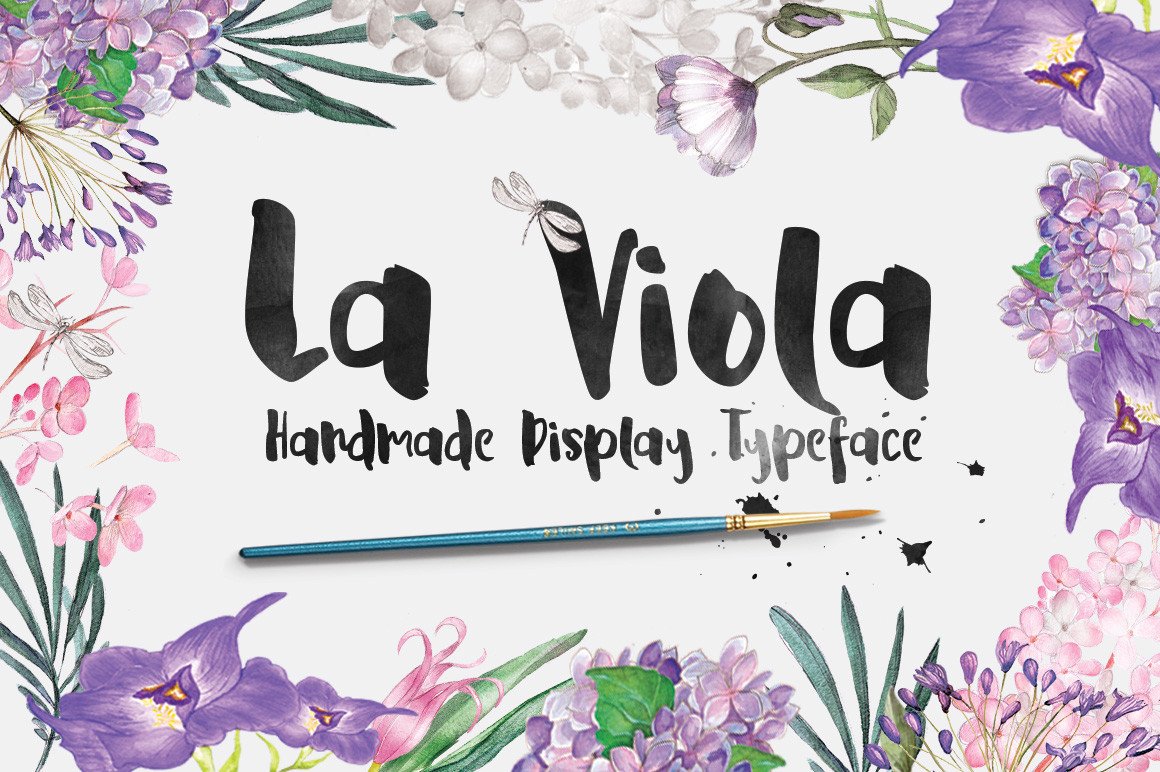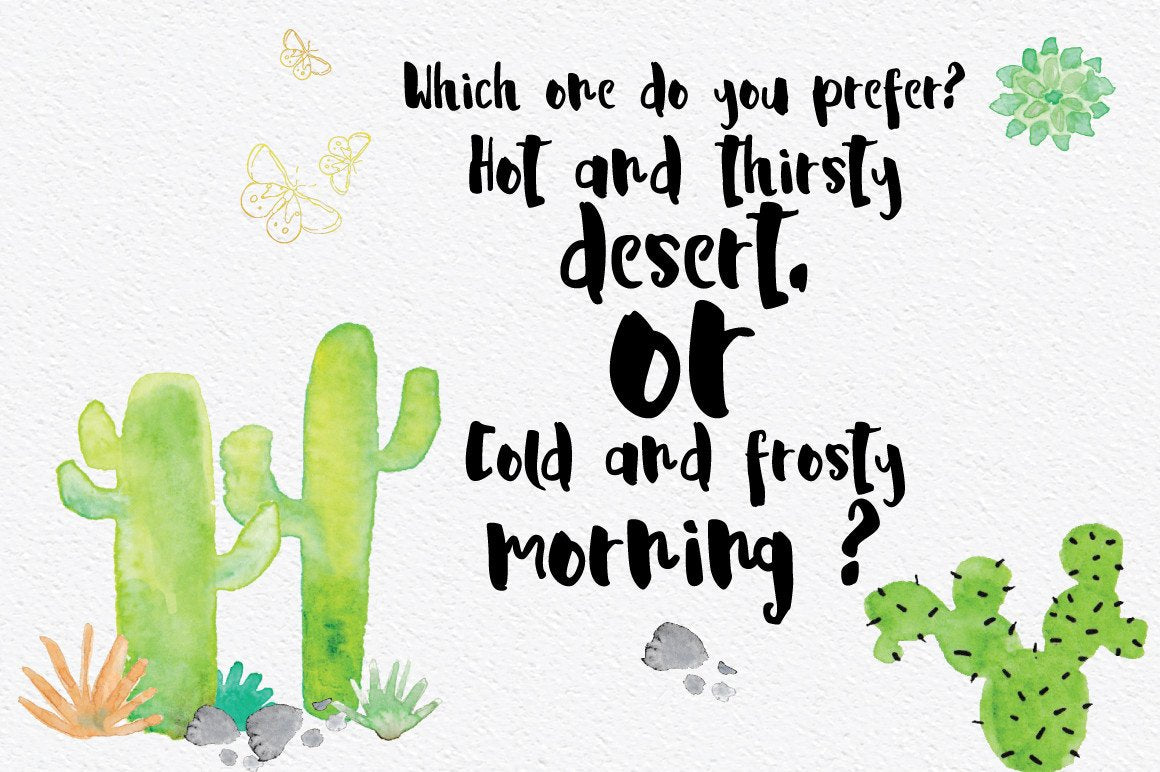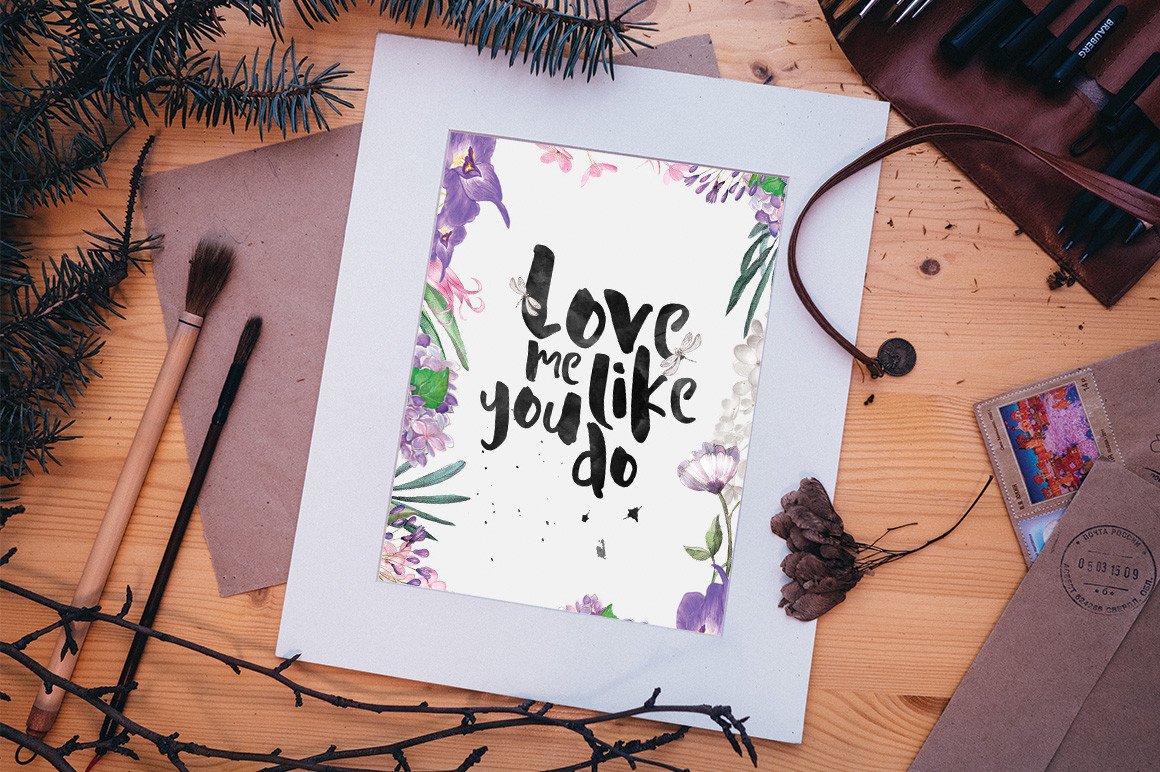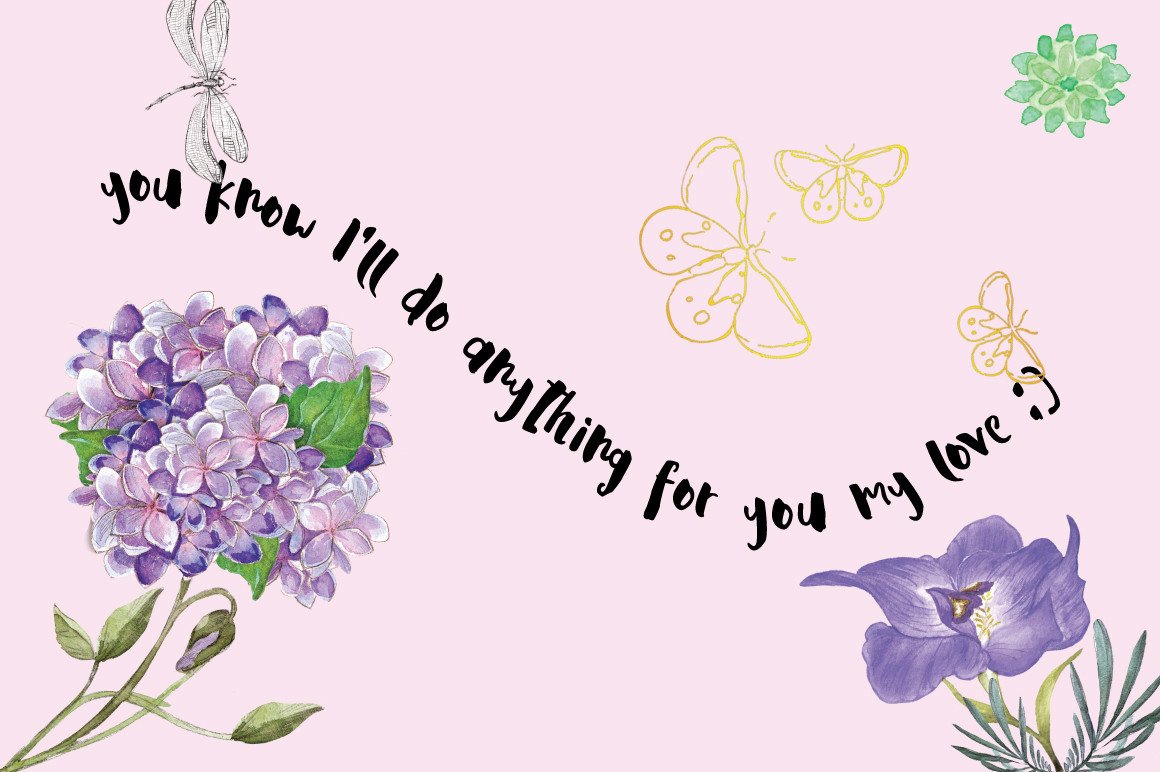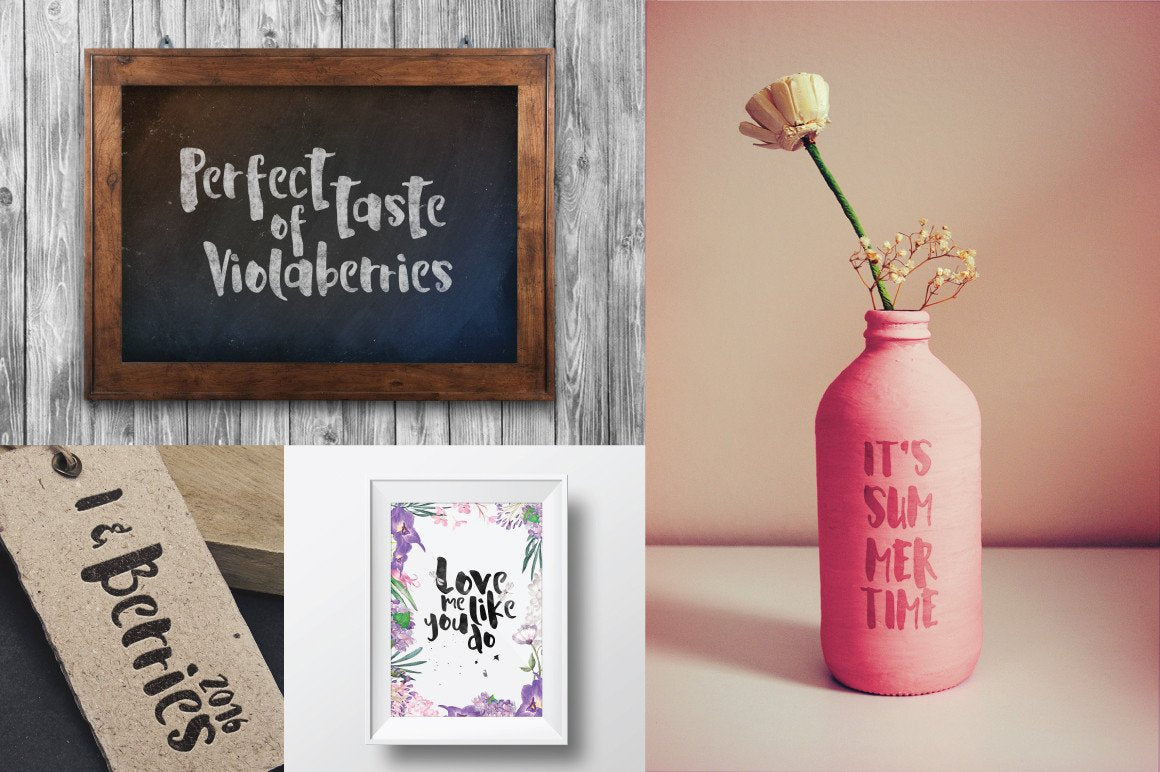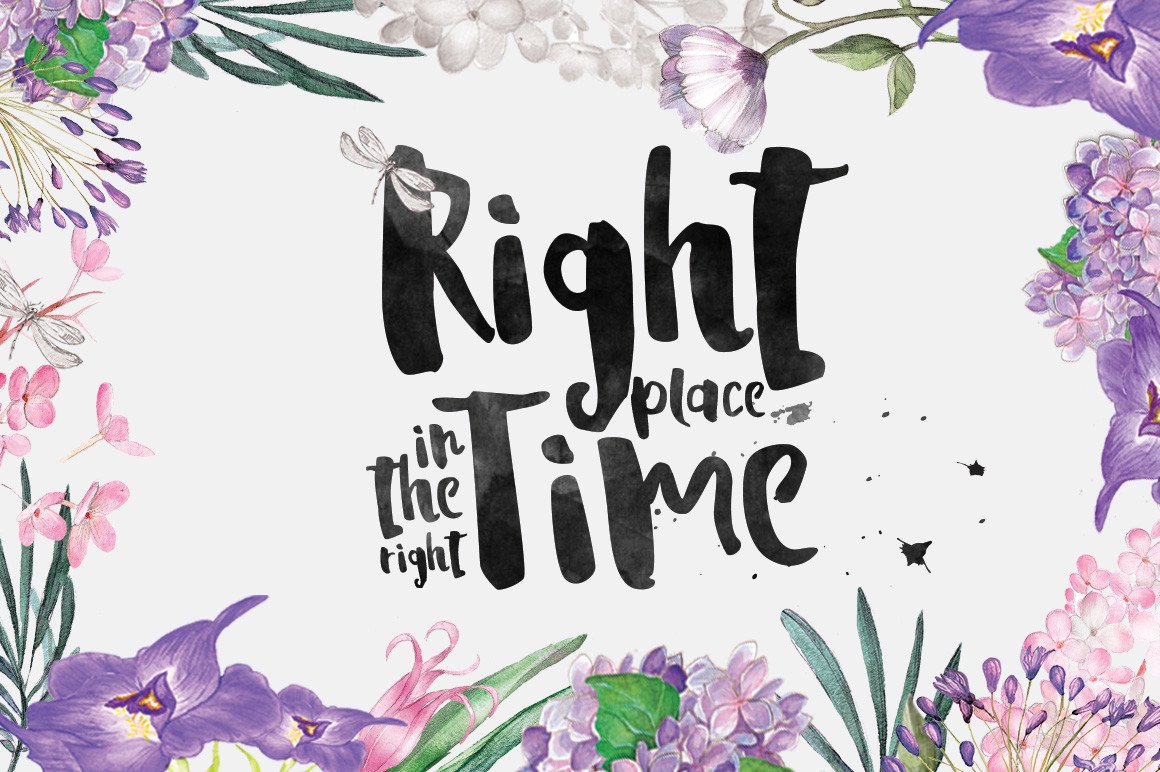
La Viola - Free Script Display Font
We've teamed up with Reza from Font & Graphic Land to bring you an amazing La Viola Handmade Display Typeface for free! This font is a must have for various purposes like headings, logos, wedding invitations, t-shirts, letterheads, signages, labels, news, posters, badges, you name the rest! Check out also Reza's best selling font bundle, The Luxurious Font Bundle.